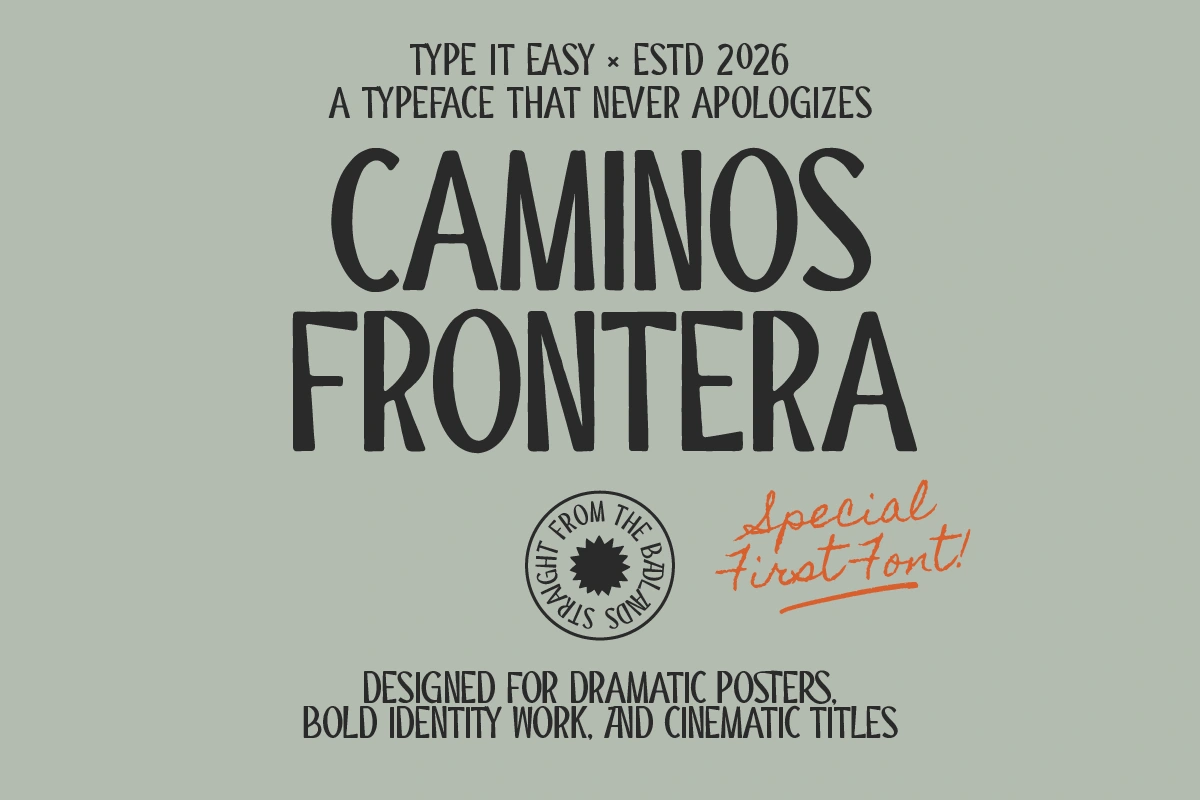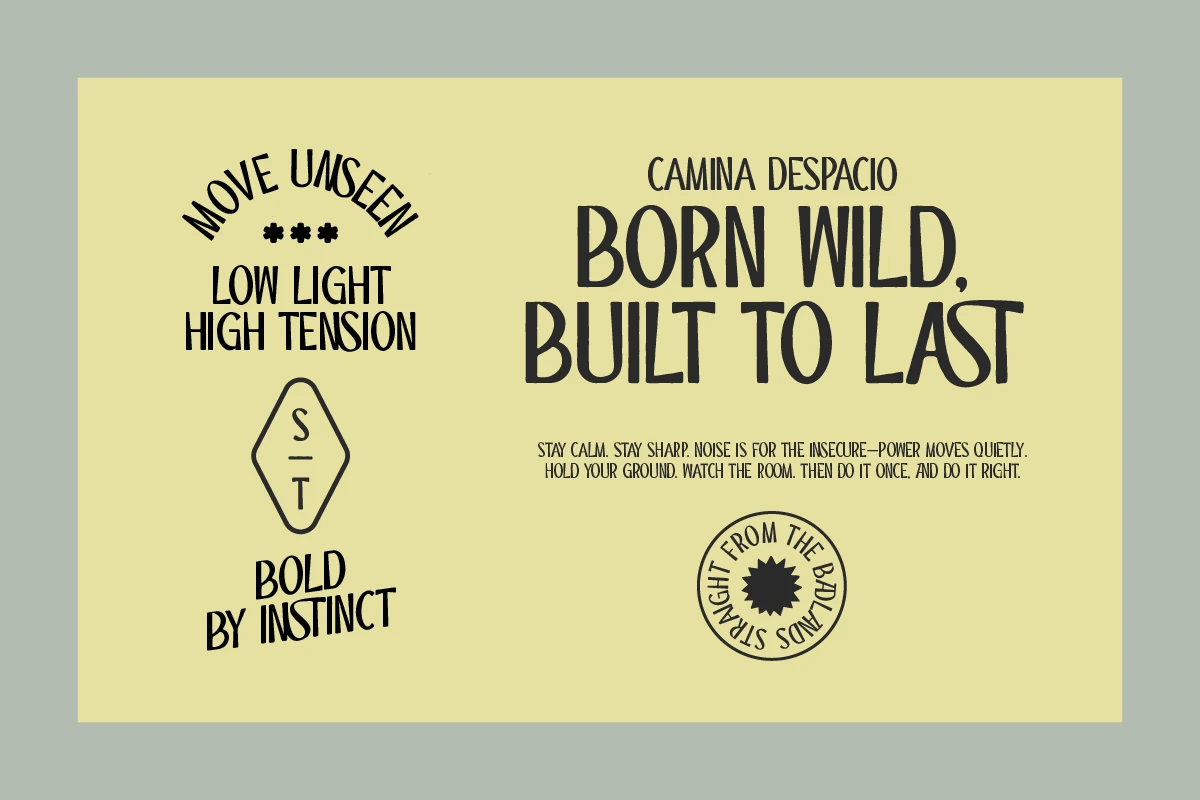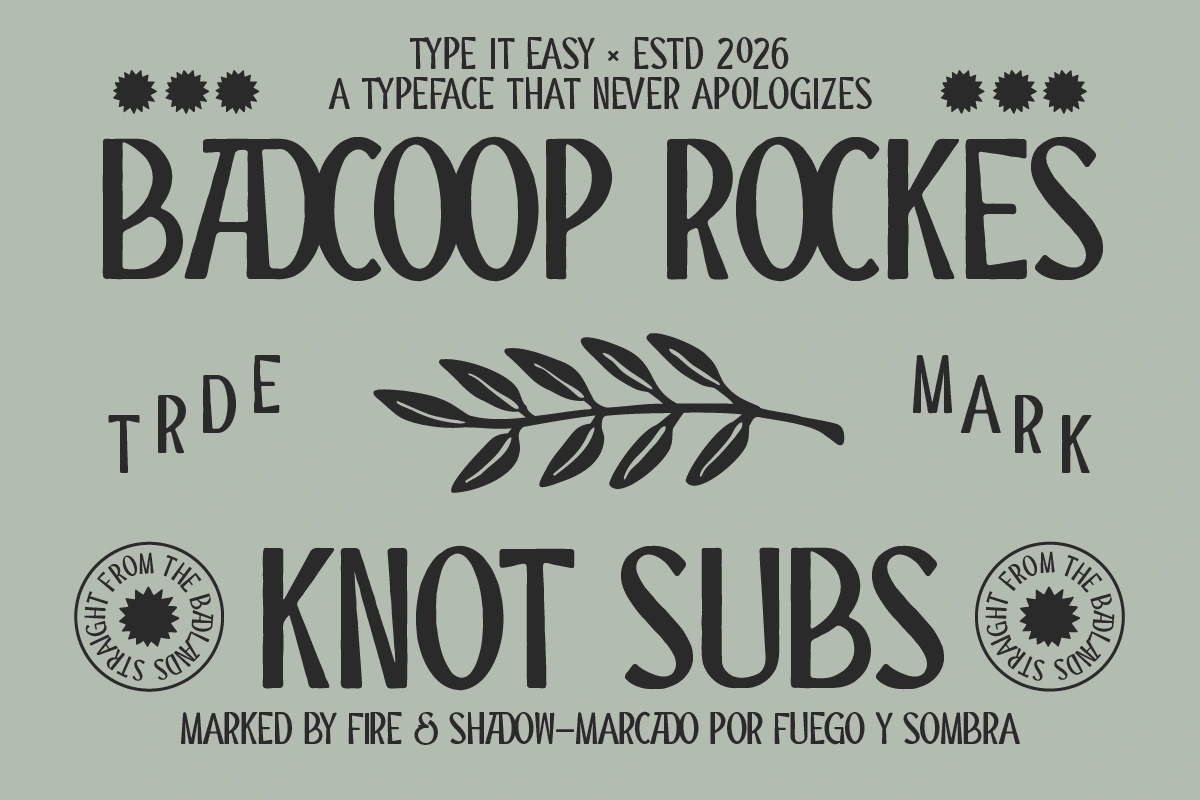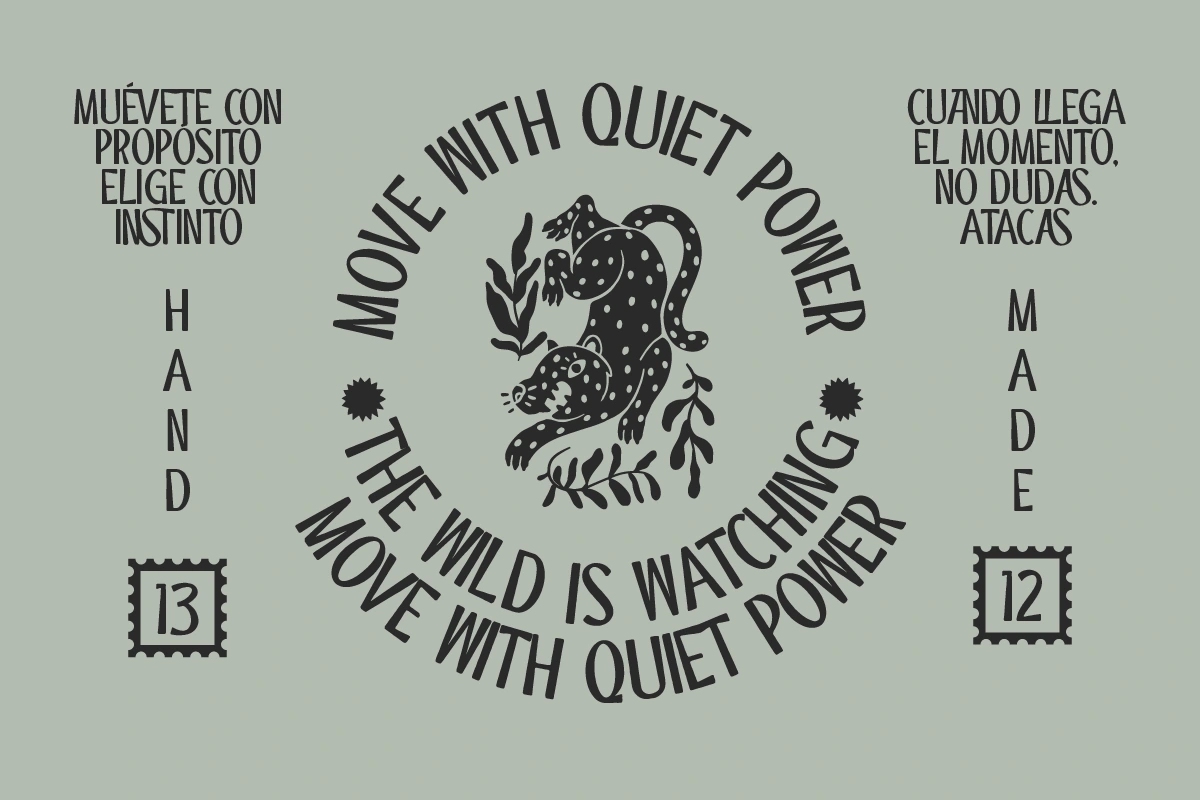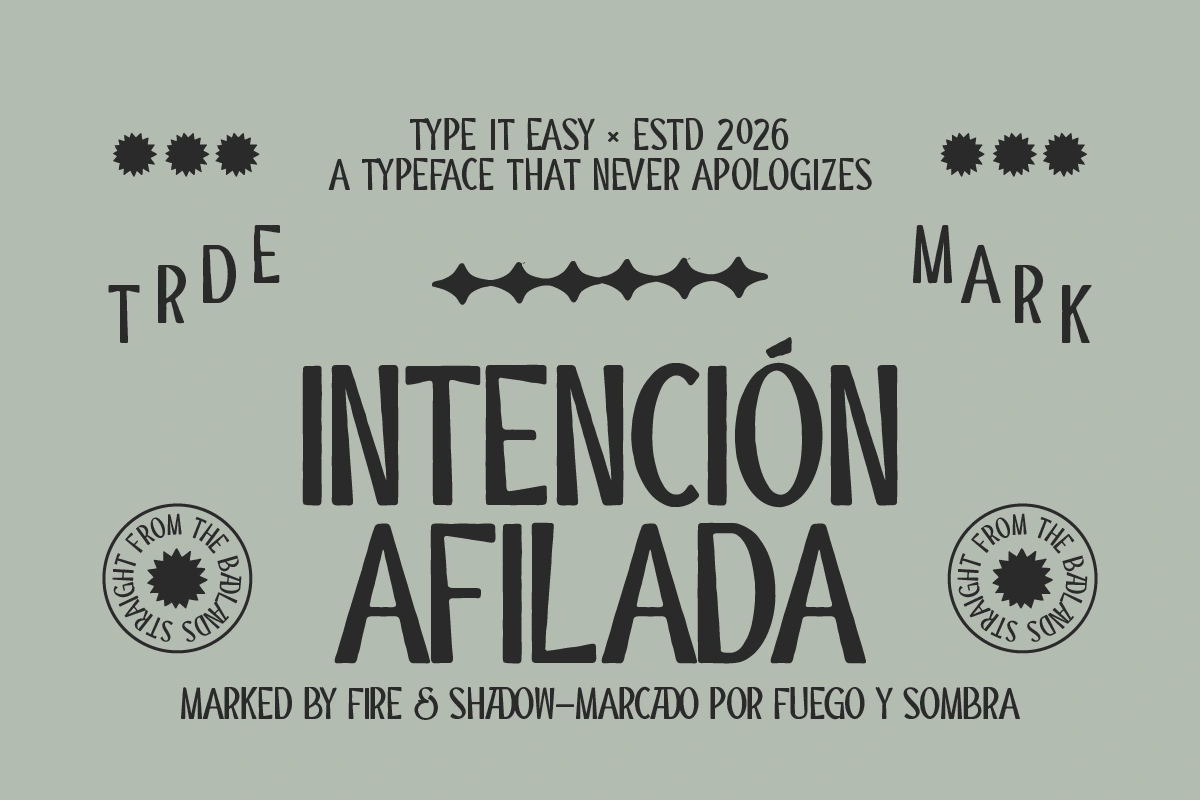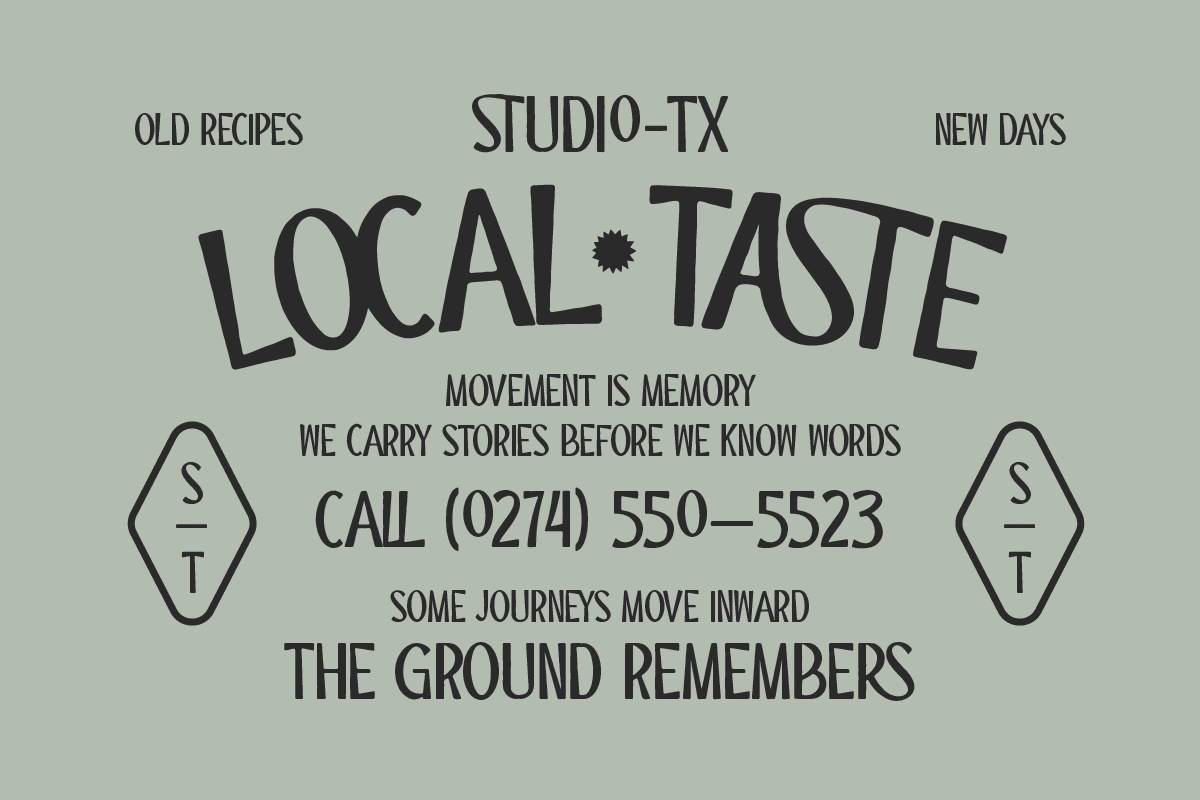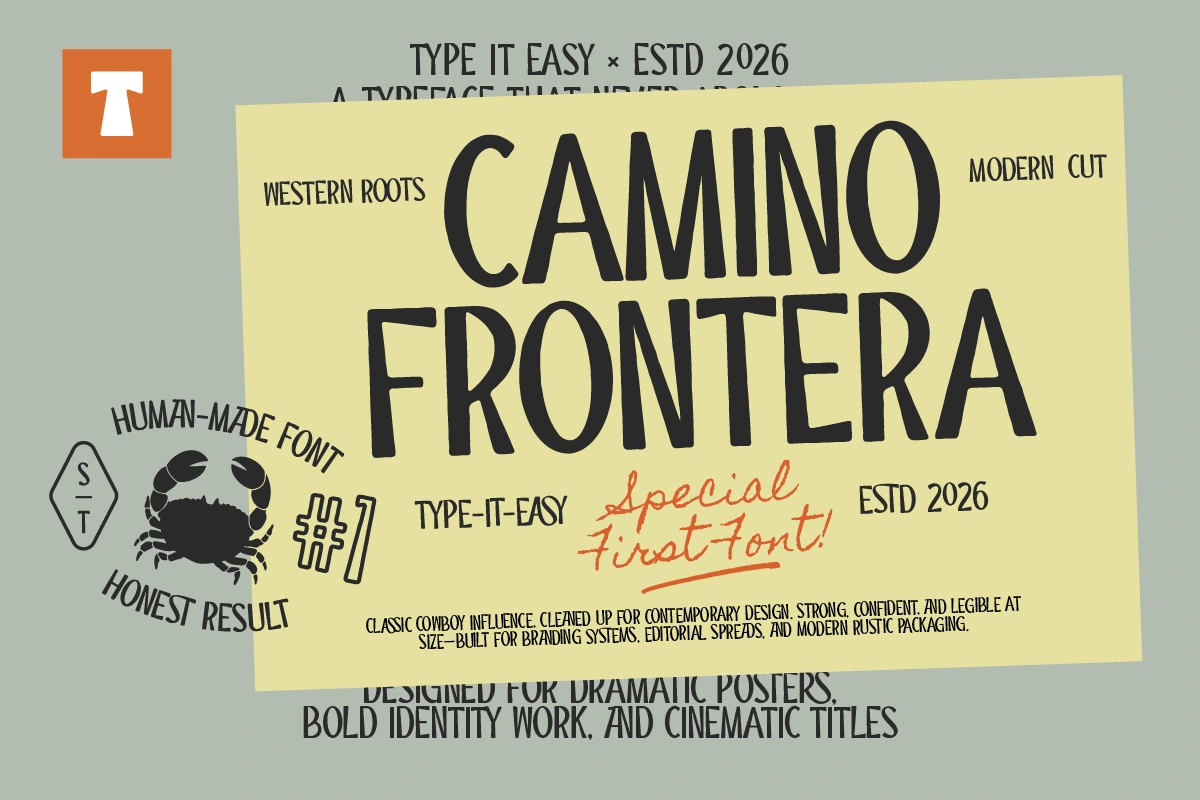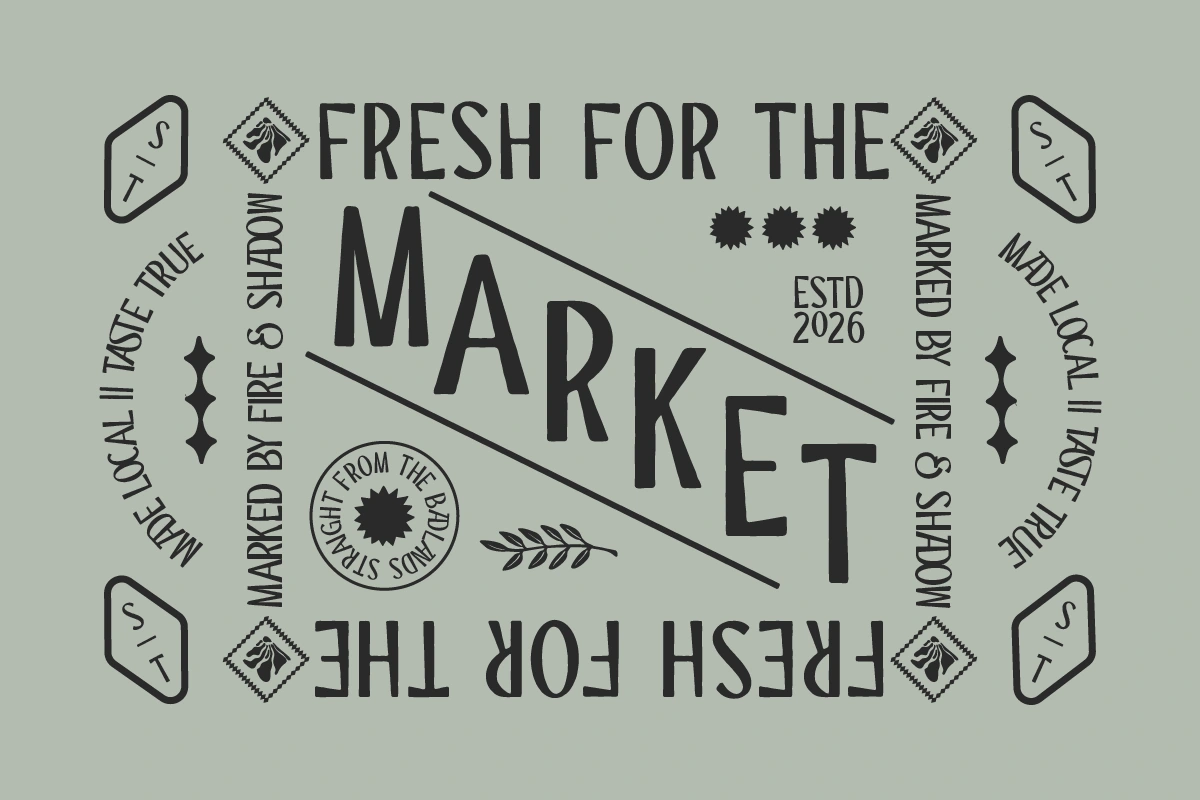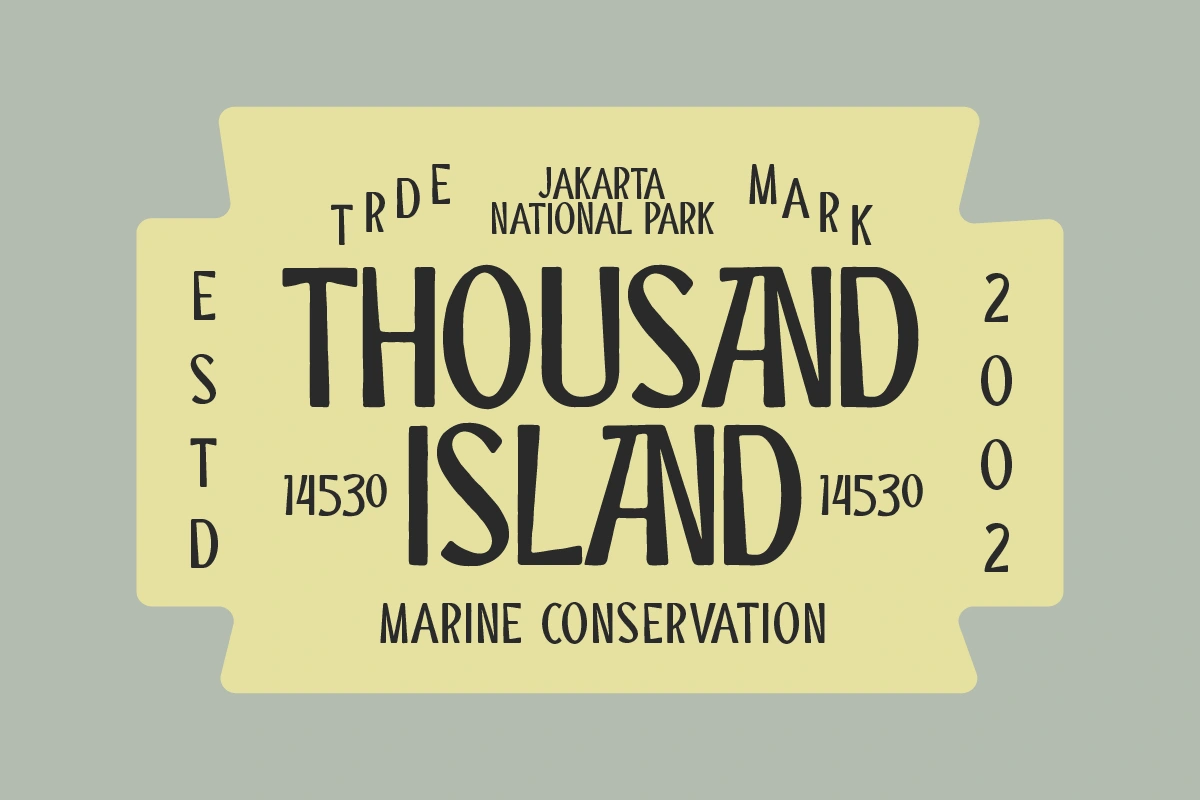
ST Camino Frontera Typeface Design
Camino Frontera is a hand-drawn, all-caps display font designed by Type it Easy. Rooted in classic western aesthetics but refined with a "modern cut," this typeface balances raw, honest character with professional legibility. It is the perfect choice for creators looking for a "human-made" feel in a digital world.
Whether you are building a brand identity for a coffee roastery, designing cinematic posters, or creating bold packaging for outdoor gear, Camino Frontera delivers a confident and dramatic presence.